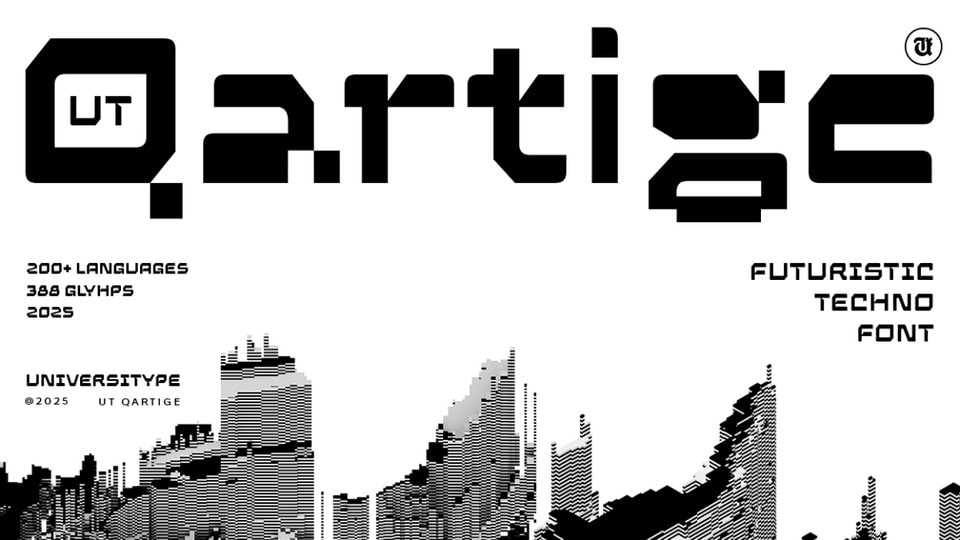
Download UT Qartige font, a techno-futuristic typeface born from the fusion of machine precision and digital rebellion with its angular cuts, micro-line illusions, and bold.
Designer: Universitype Foundry